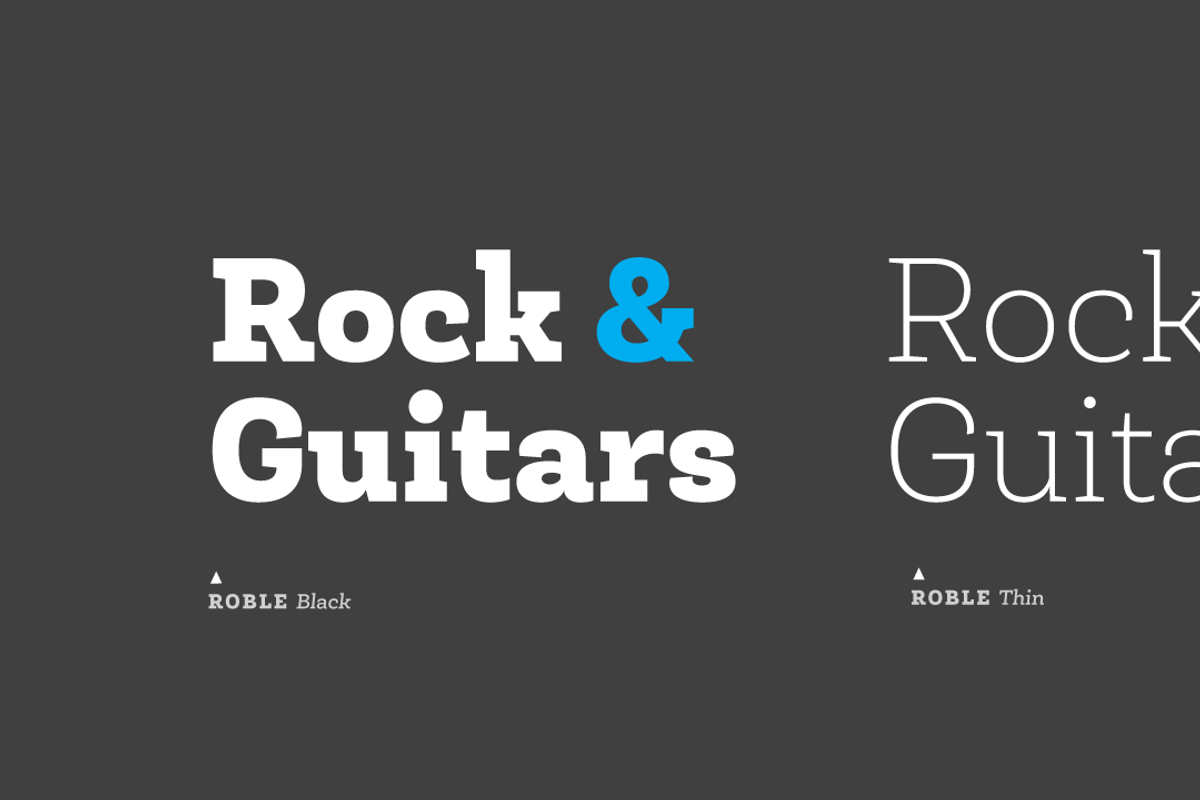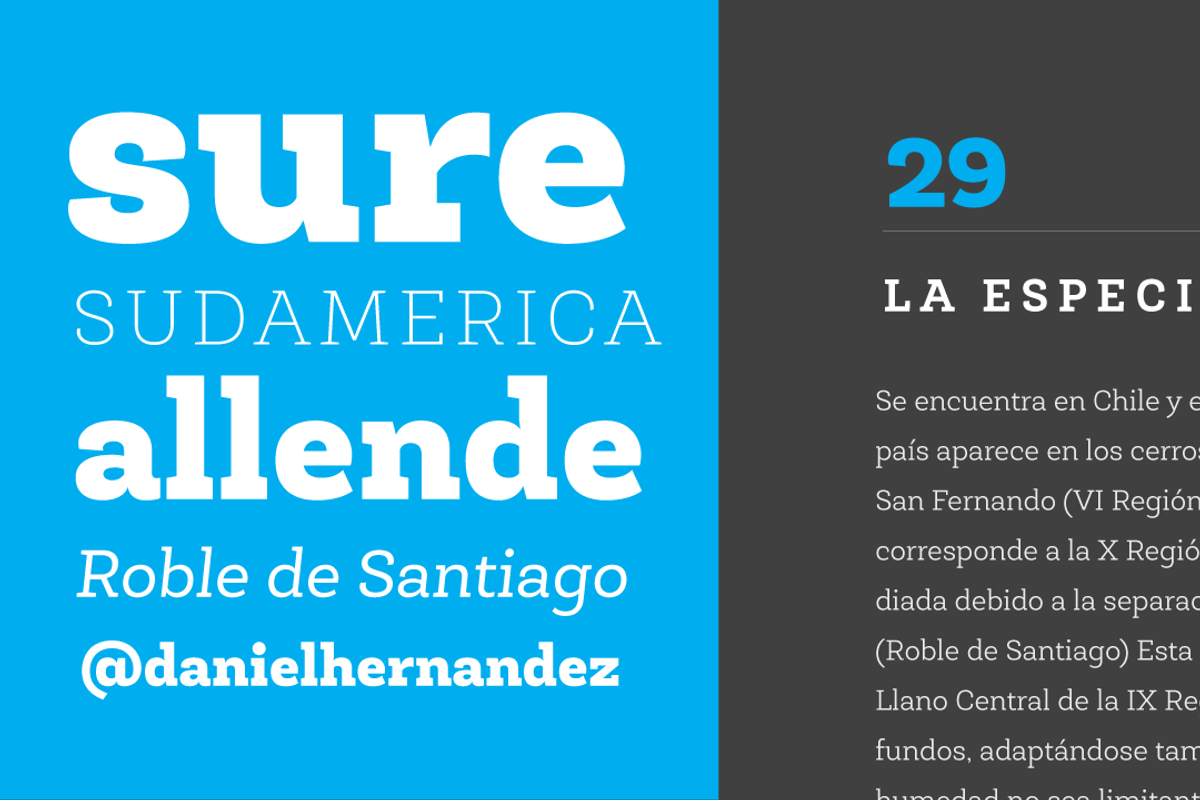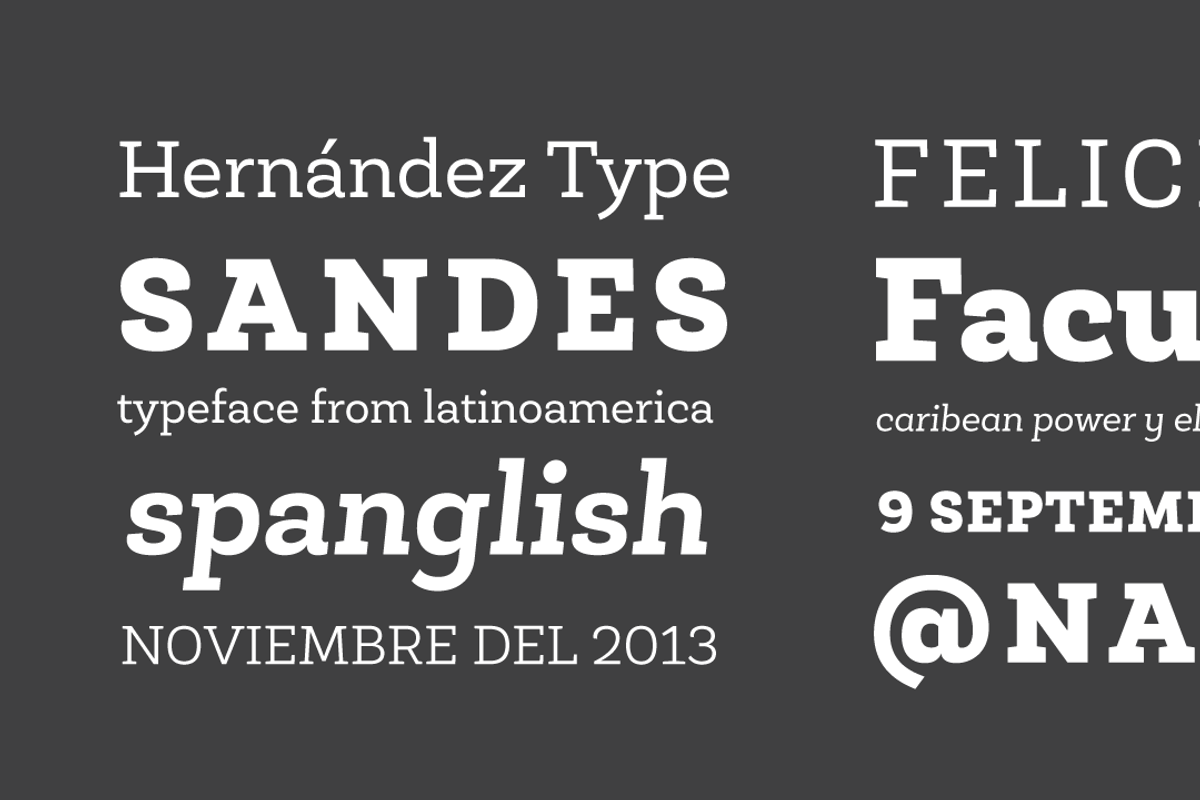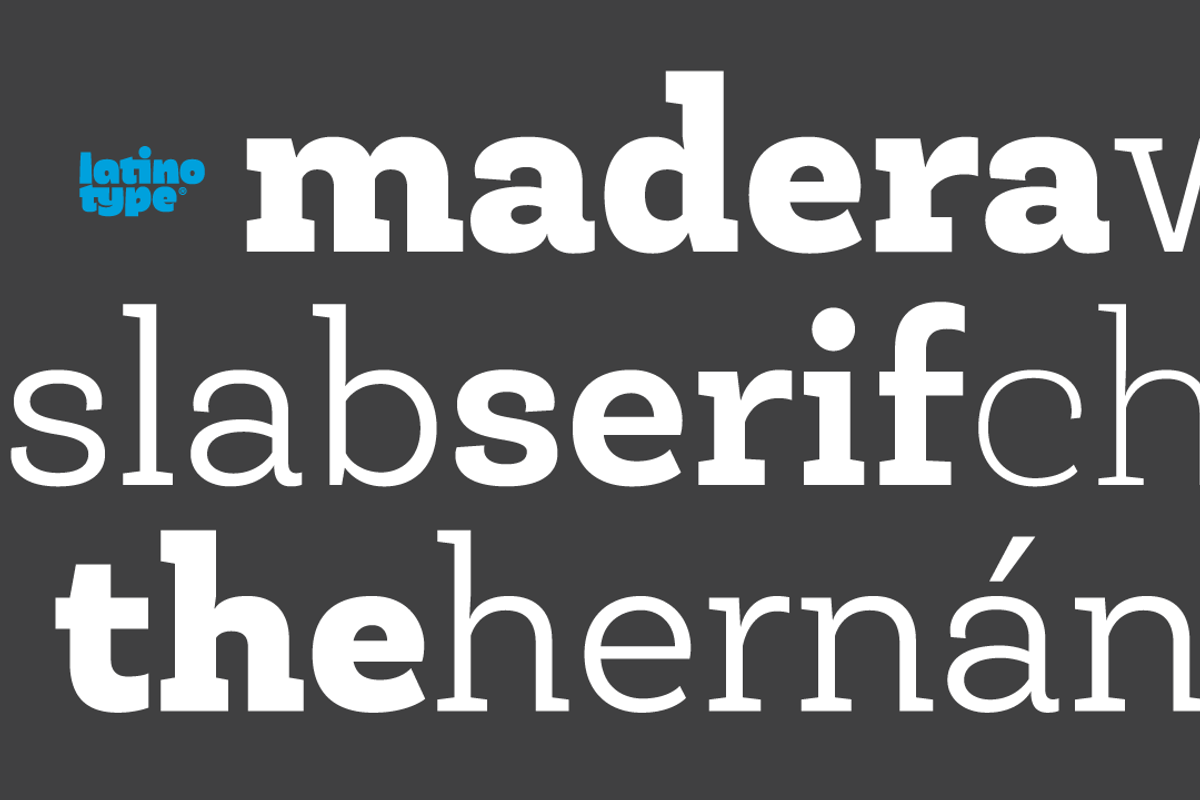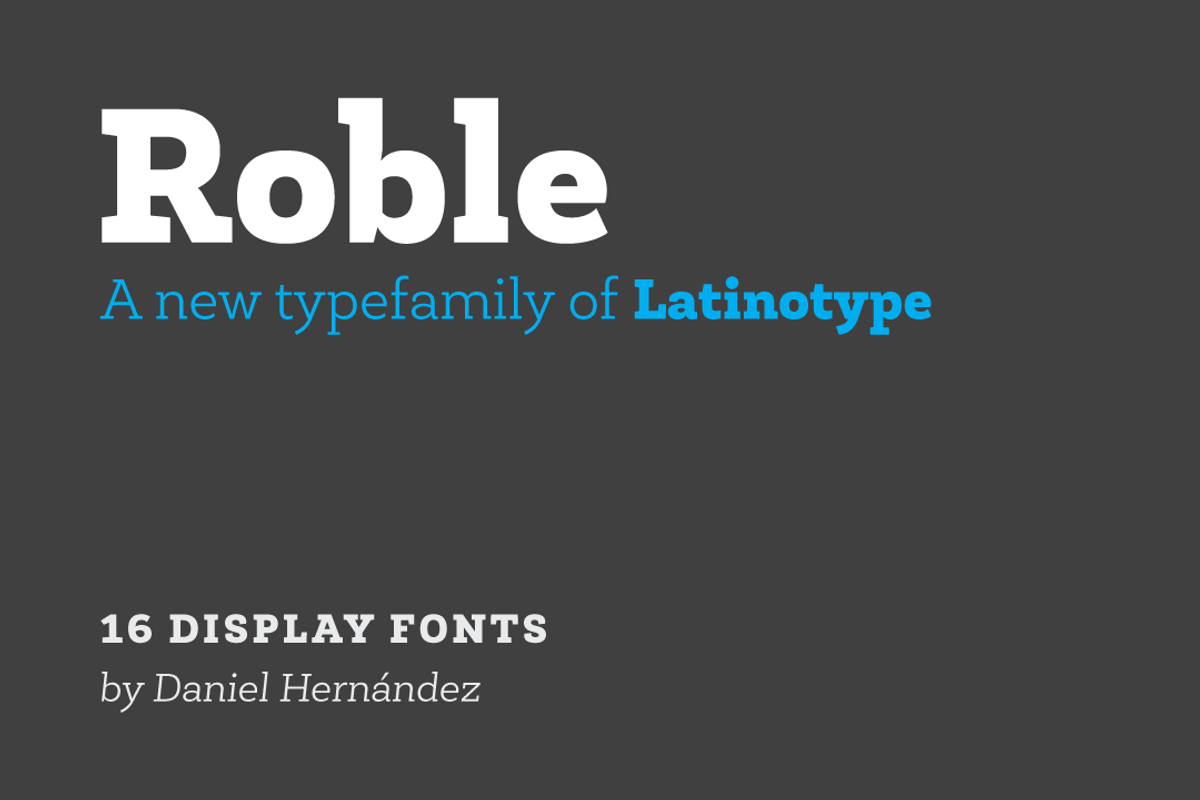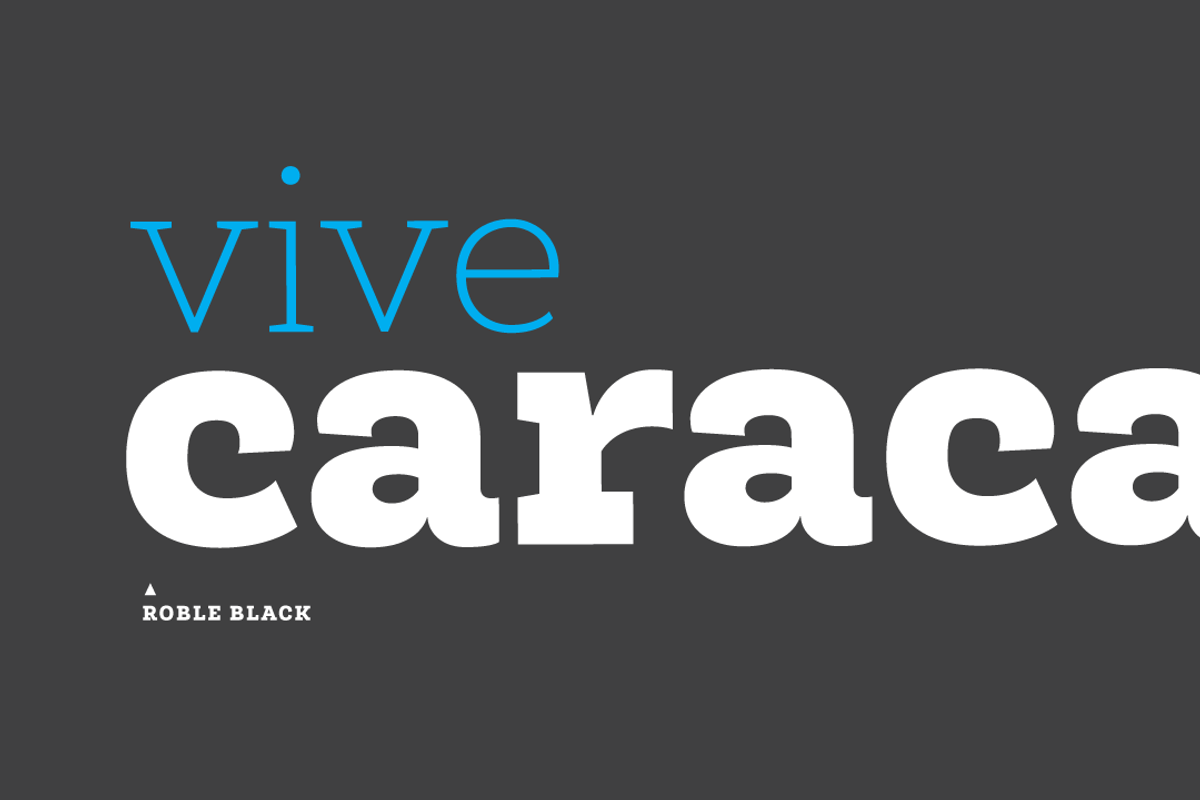
Roble
Roble is a Slab Serif Font, from a mix between Andes and Sanchez, following a harmony with both fonts one sans and one serif with a fresh and dynamic result.
Roble is a family of 32 display fonts 16 weights plus italics.